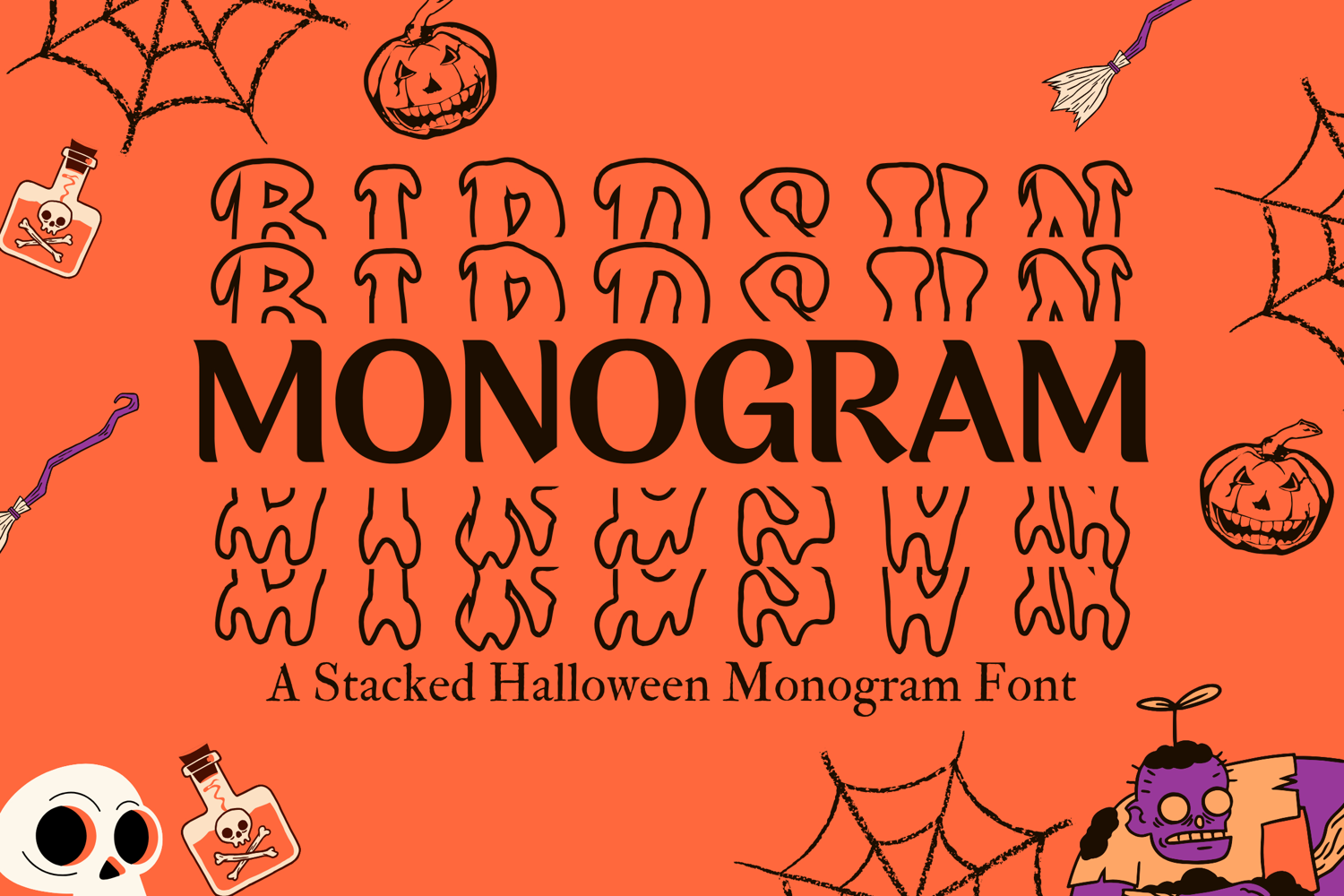
Birdsun Halloween Stacked Monogram Font for Spooky Design
Birdsun Halloween Stacked Monogram
Add a spooky twist to your monograms with Birdsun Halloween, a unique stacked monogram font inspired by the fun, fright, and flair of Halloween! This font blends playful charm with stacked letterform elegance, perfect for crafting Halloween gifts, trick-or-treat bags, party invitations, and more.
With a bold yet whimsical style, Birdsun Halloween is ideal for vinyl projects, sublimation, and anything that needs a touch of haunted happiness!
• Birdsun Halloween – Stacked Monogram Font
• Uppercase letters designed for stacked monograms
• Bonus symbols and Halloween-inspired alternates